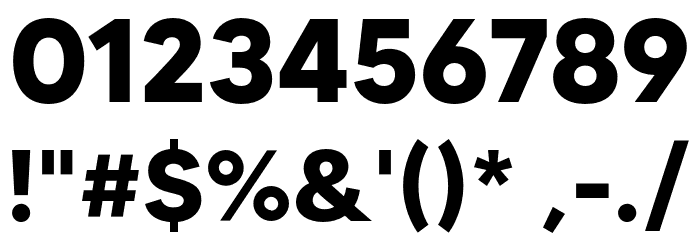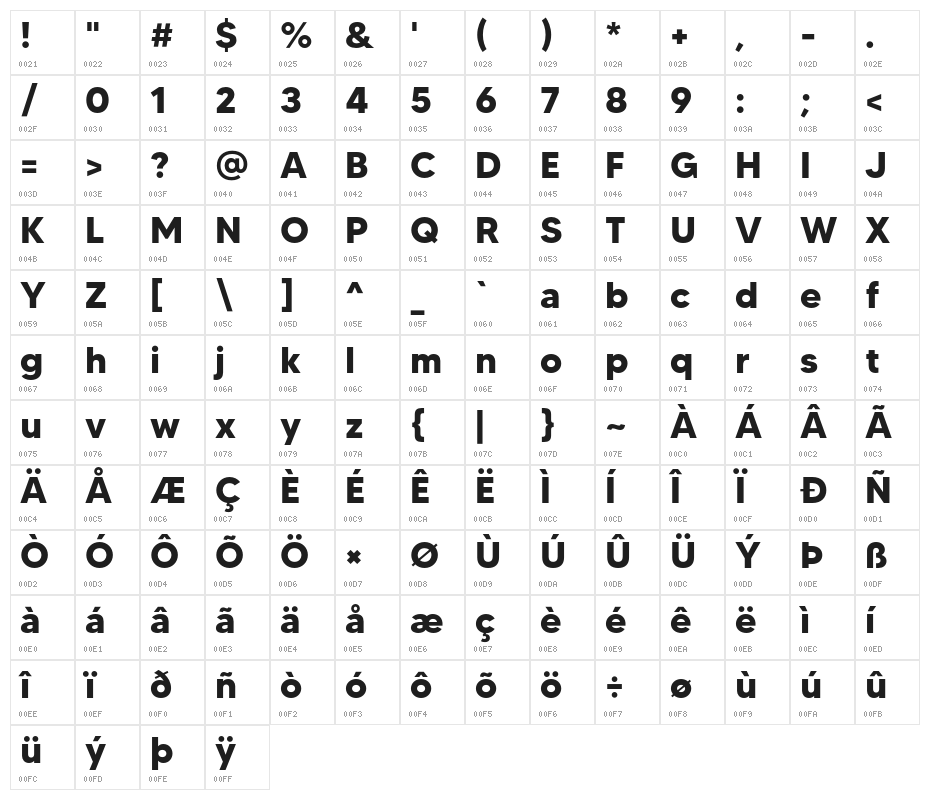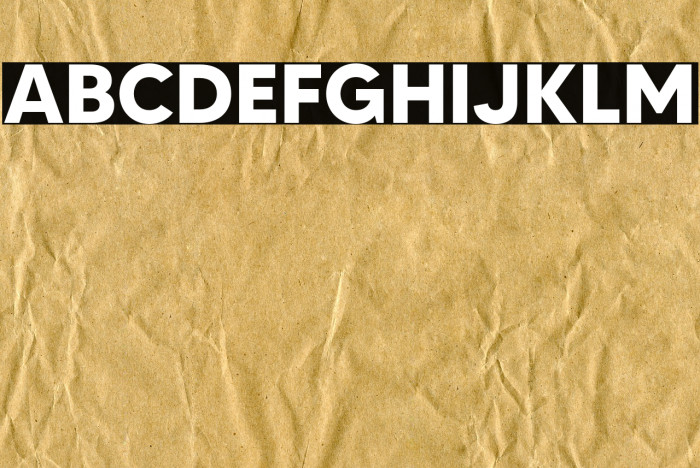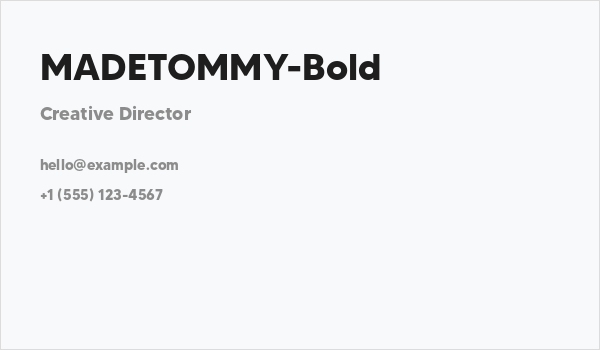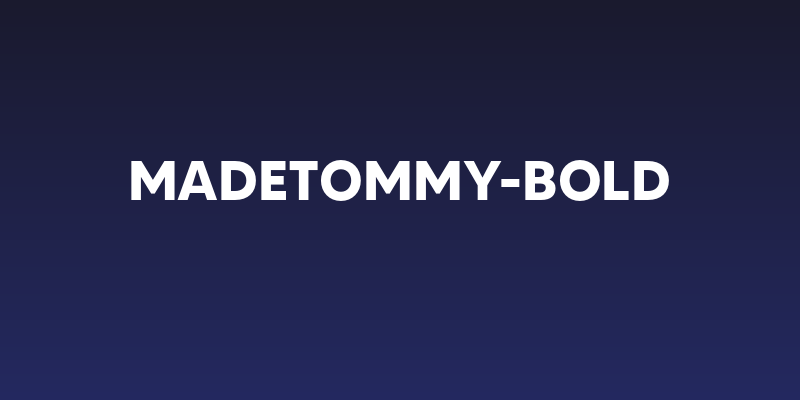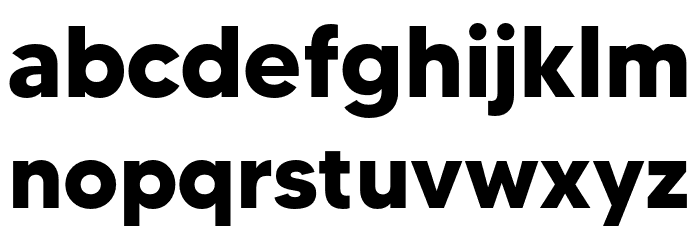
MADETOMMY-Bold Font
MADETOMMY-Bold Description
This font exhibits a bold and modern sans-serif style, characterized by clean lines and a strong presence. The uppercase and lowercase letters are well-proportioned, with a consistent stroke width that conveys a sense of stability and confidence. The numerals are clear and easily distinguishable, making them suitable for various applications. Special characters are included, maintaining the same bold aesthetic. The overall design is versatile, suitable for both digital and print media, and can effectively capture attention in headlines or branding materials.